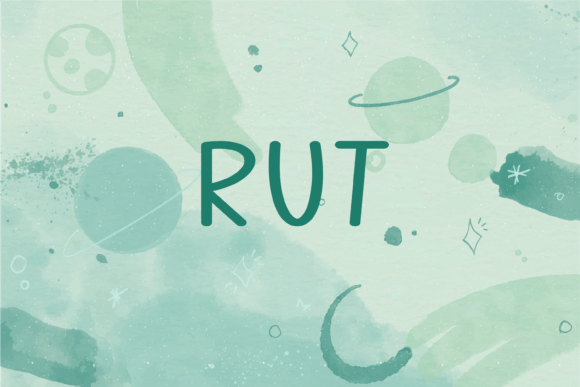
Rut Font: The Simple and Friendly Handwritten Font for Your Designs
In the world of typography, fonts play a crucial role in conveying the tone and personality of a design. Among the numerous fonts available, Rut Font stands out for its simplicity, friendliness, and whimsical touch. This handwritten font is perfect for designers looking to add a personal and quirky feel to their projects. In this article, we’ll explore the features and benefits of Rut Font, and how it can elevate your designs.
What is Rut Font?
Rut Font is a beautiful, handwritten typeface that exudes a sense of simplicity and friendliness. Its whimsical and quirky nature makes it perfect for a wide range of design applications. Whether you’re working on a logo, wedding invitation, quote, advertisement, or magazine, Rut Font is an excellent choice.
Key Features of Rut Font
- Simple and Friendly: Rut Font boasts a clean and approachable design, making it perfect for designs that require a personal touch.
- Whimsical and Quirky: The font’s playful nature adds a unique charm to your designs, setting them apart from others.
- Handwritten: Rut Font’s handwritten style gives it a warm and organic feel, suitable for a wide range of applications.
- Versatile: This font is perfect for various design projects, including logos, wedding invitations, quotes, advertisements, print, magazines, and more.
Benefits of Using Rut Font
Rut Font offers several benefits that make it an excellent choice for designers. Here are some of the advantages of using Rut Font:
Why Choose Rut Font?
- Easy to Read: Rut Font’s clean design ensures that your text is easy to read, even at smaller font sizes.
- Unique and Memorable: The font’s whimsical nature helps create unique and memorable designs that stand out from the crowd.
- Time-Saving: With Rut Font, you can create stunning designs quickly, saving you time and effort.
Design Applications for Rut Font
Rut Font’s versatility makes it suitable for a wide range of design applications. Here are some of the ways you can use Rut Font:
Where to Use Rut Font?
- Logos: Create unique and memorable logos for your brand or business.
- Wedding Invitations: Add a personal touch to your wedding invitations with Rut Font’s whimsical design.
- Quotes: Make your quotes stand out with Rut Font’s clean and readable design.
- Advertisements: Use Rut Font to create eye-catching advertisements that grab attention.
- Print: Rut Font is perfect for print designs, including brochures, flyers, and posters.
- Magazines: Add a touch of personality to your magazine designs with Rut Font.
Tips for Using Rut Font Effectively
To get the most out of Rut Font, here are some tips to keep in mind:
Best Practices for Rut Font
- Use it Sparingly: Use Rut Font sparingly to avoid overwhelming your design.
- Pair it with Other Fonts: Experiment with pairing Rut Font with other fonts to create a unique look.
- Adjust Font Size: Adjust the font size to create visual hierarchy and emphasis.
- Experiment with Colors: Try out different colors to find the perfect match for your design.
Rut Font is a simple and friendly handwritten font that can elevate your designs with its whimsical and quirky nature. Its versatility makes it suitable for a wide range of design applications, from logos to magazines. By following the tips outlined in this article, you can use Rut Font effectively and create stunning designs that stand out from the crowd.